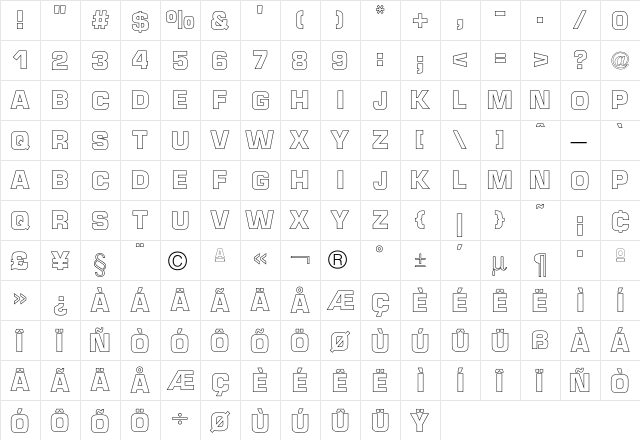
Micro TechnicBoldOutline Font Preview
Micro TechnicBoldOutline
Micro TechnicBoldOutline Font Details
Design Context for Micro Typeface
Micro channels digital-age aesthetics through its sharp, structured letterforms — ideal for brands that want to signal innovation. Its bold stroke weight gives it real presence on the page.
Pro Tip: Use Micro in combination with a neutral sans for body text. Let it define the brand voice in headlines while keeping reading comfortable elsewhere.